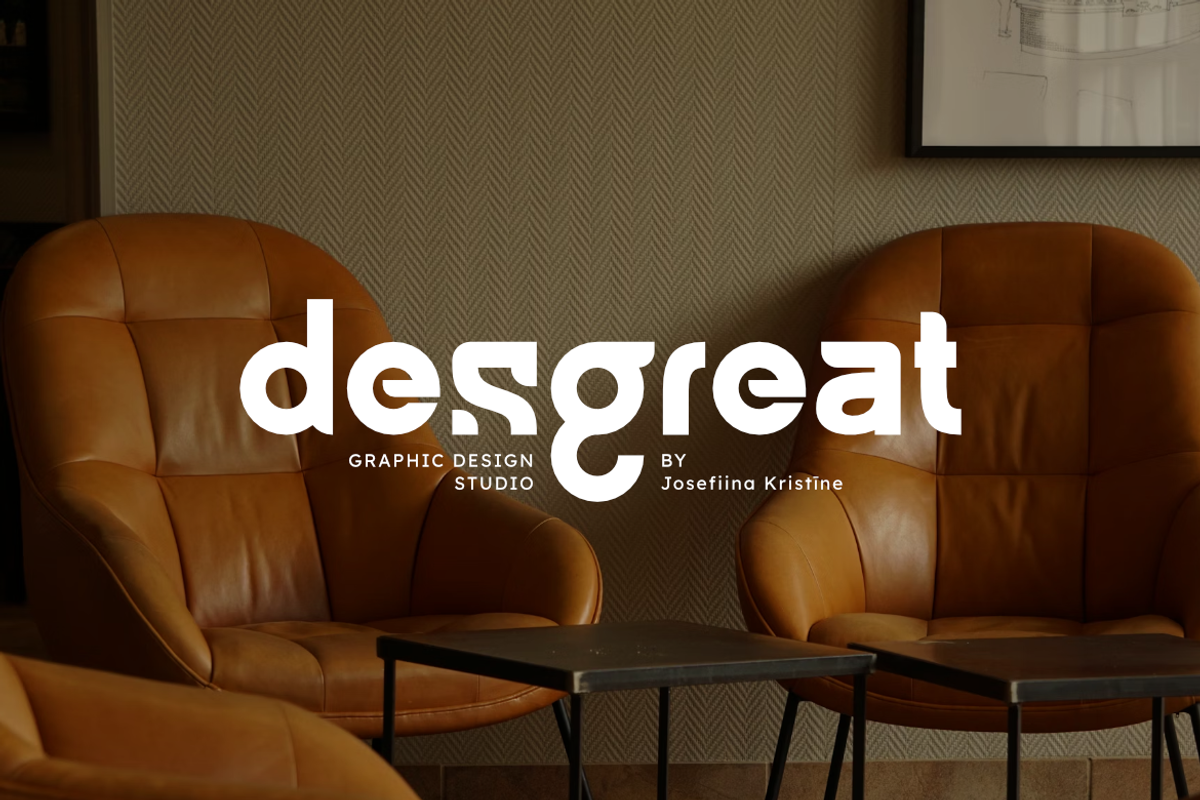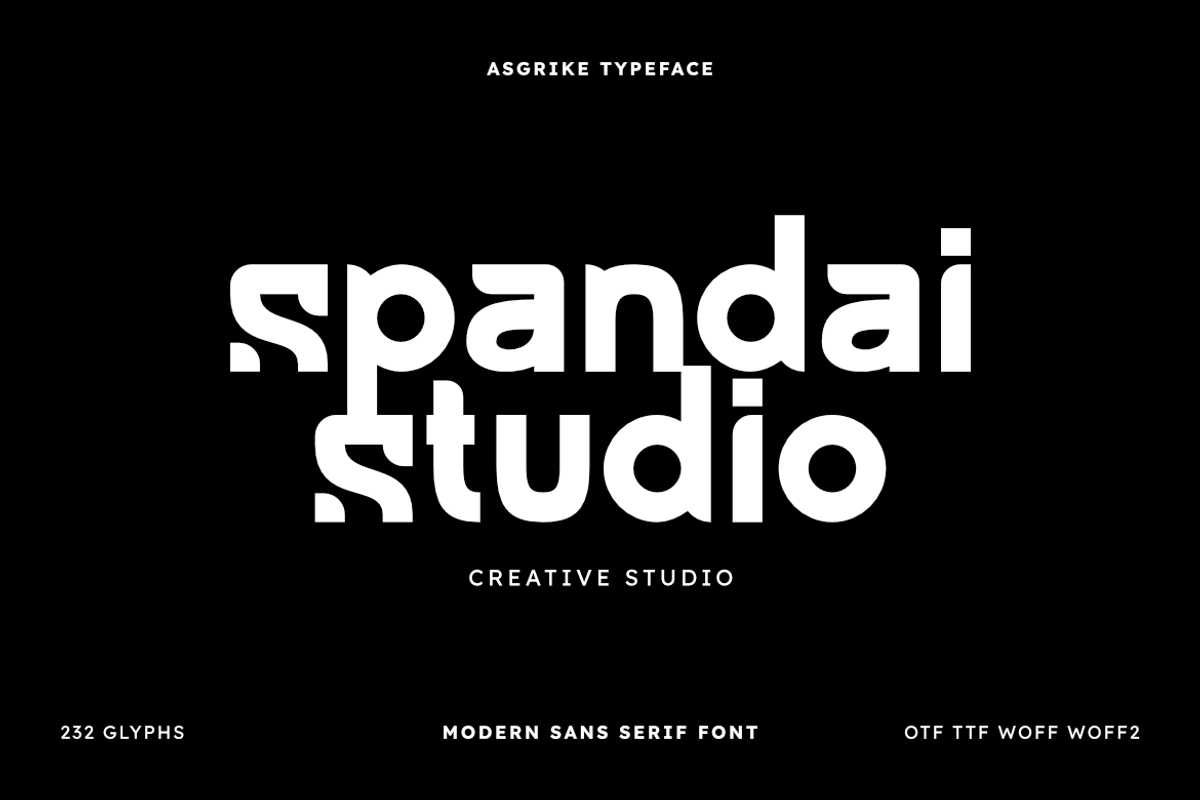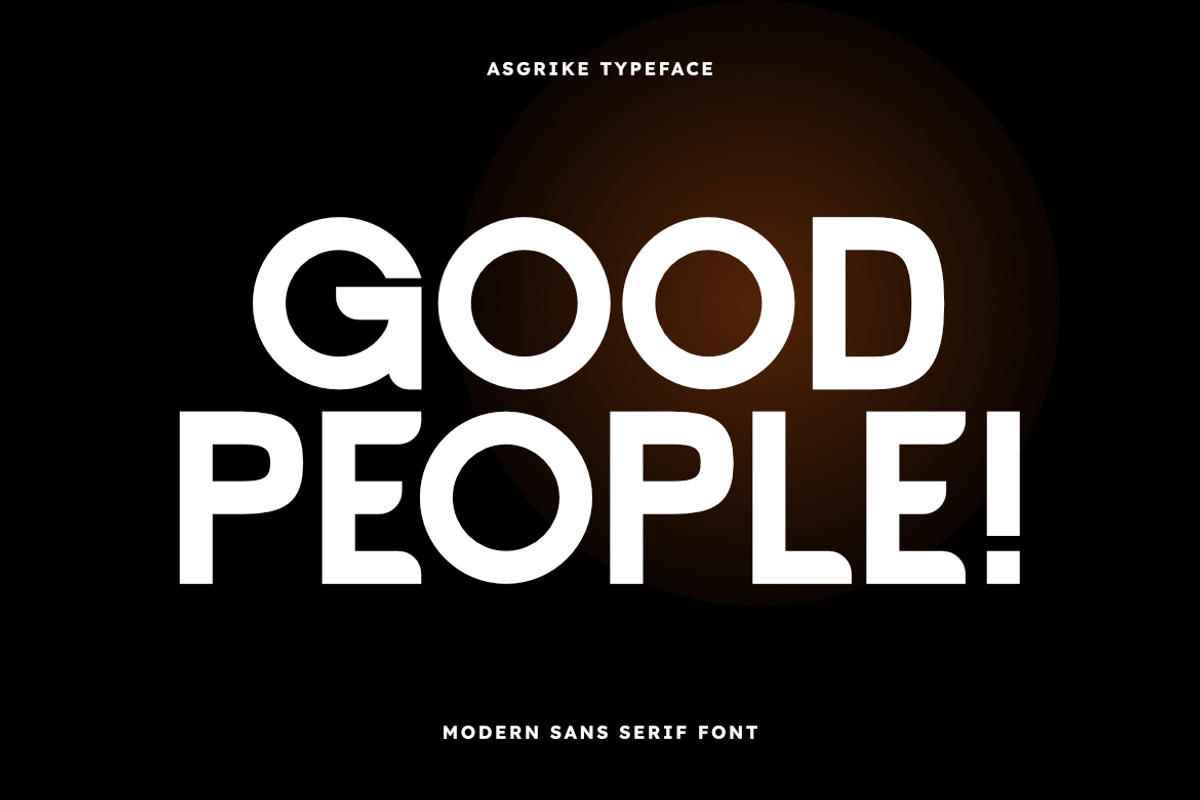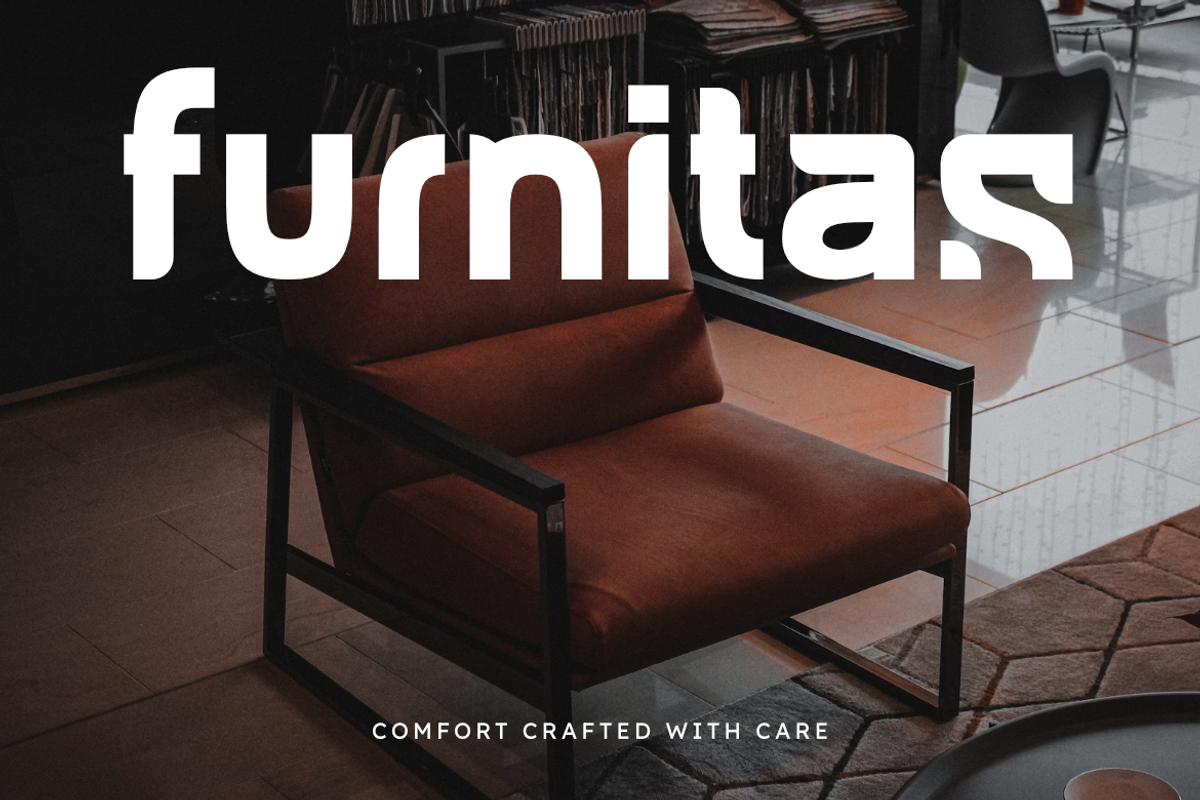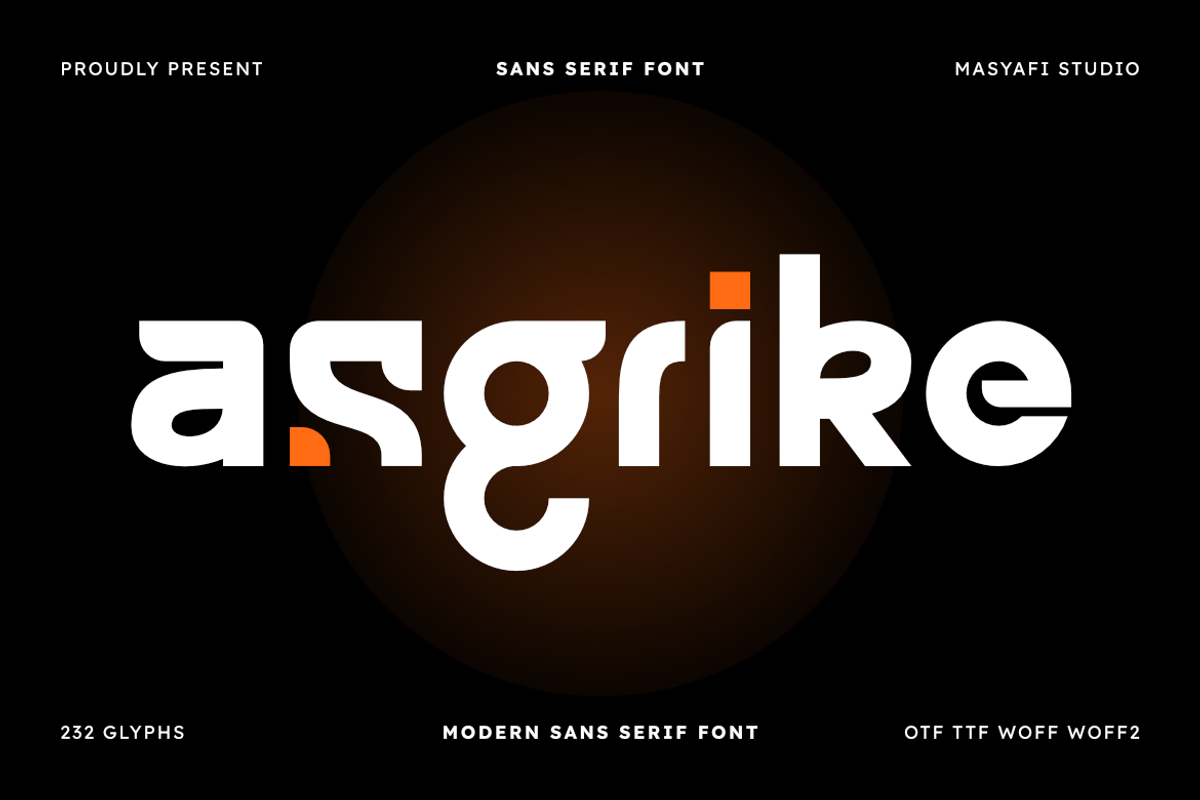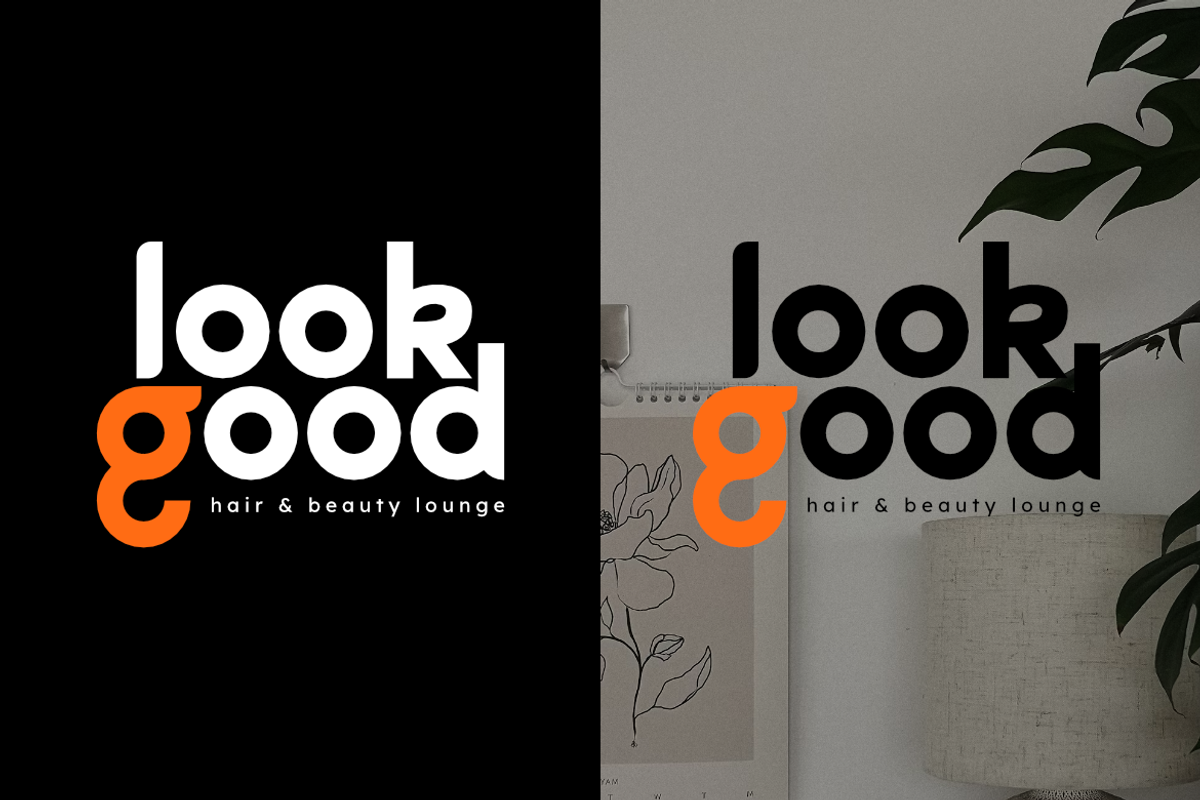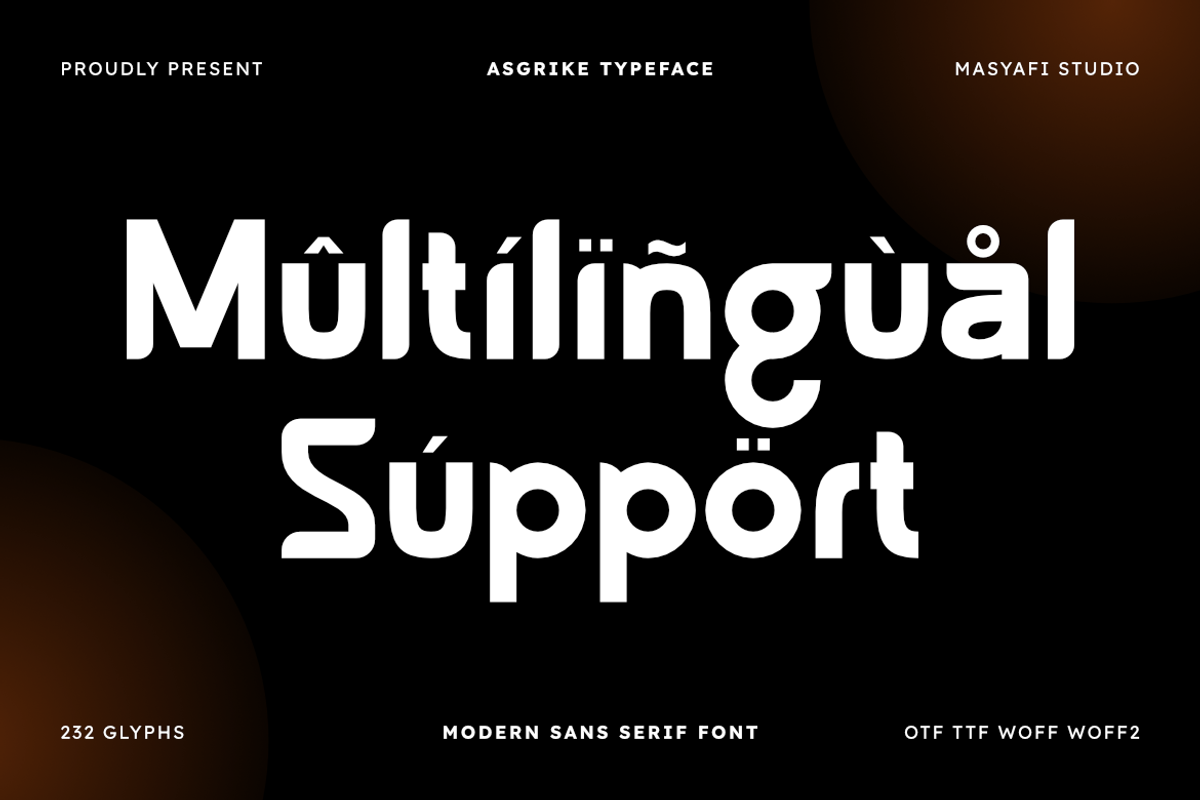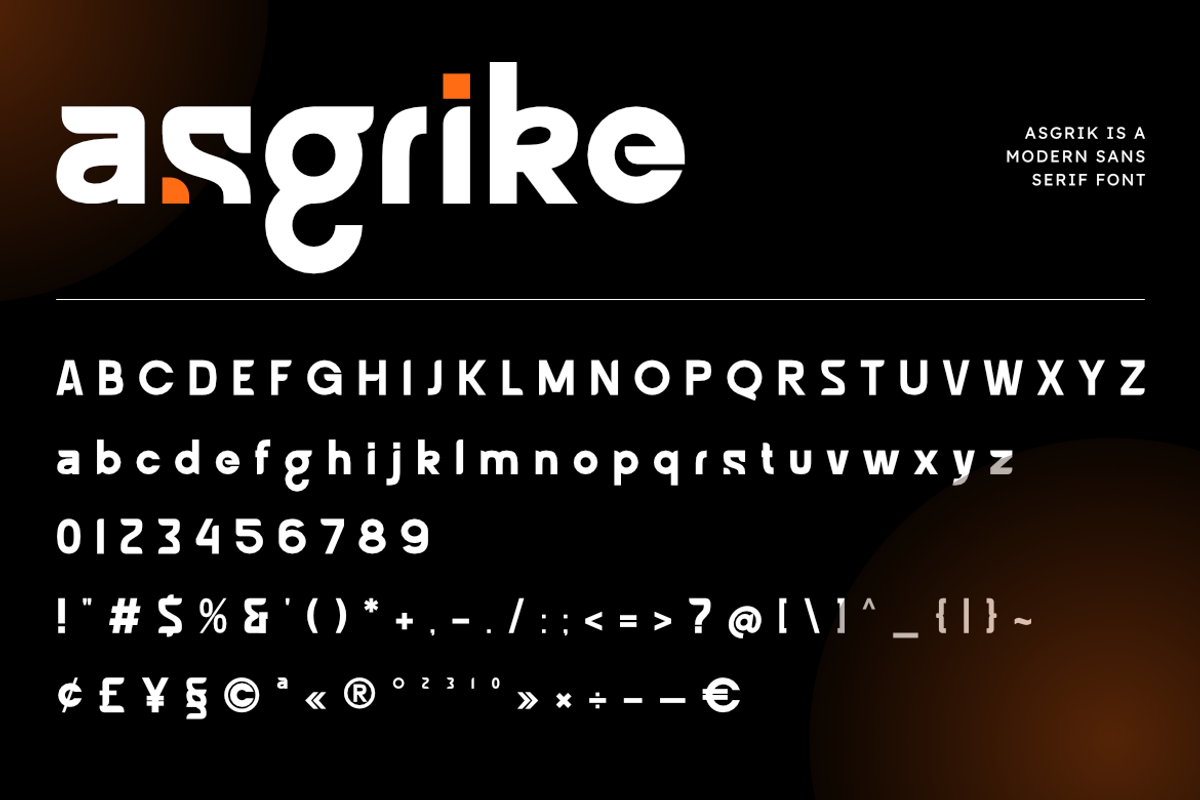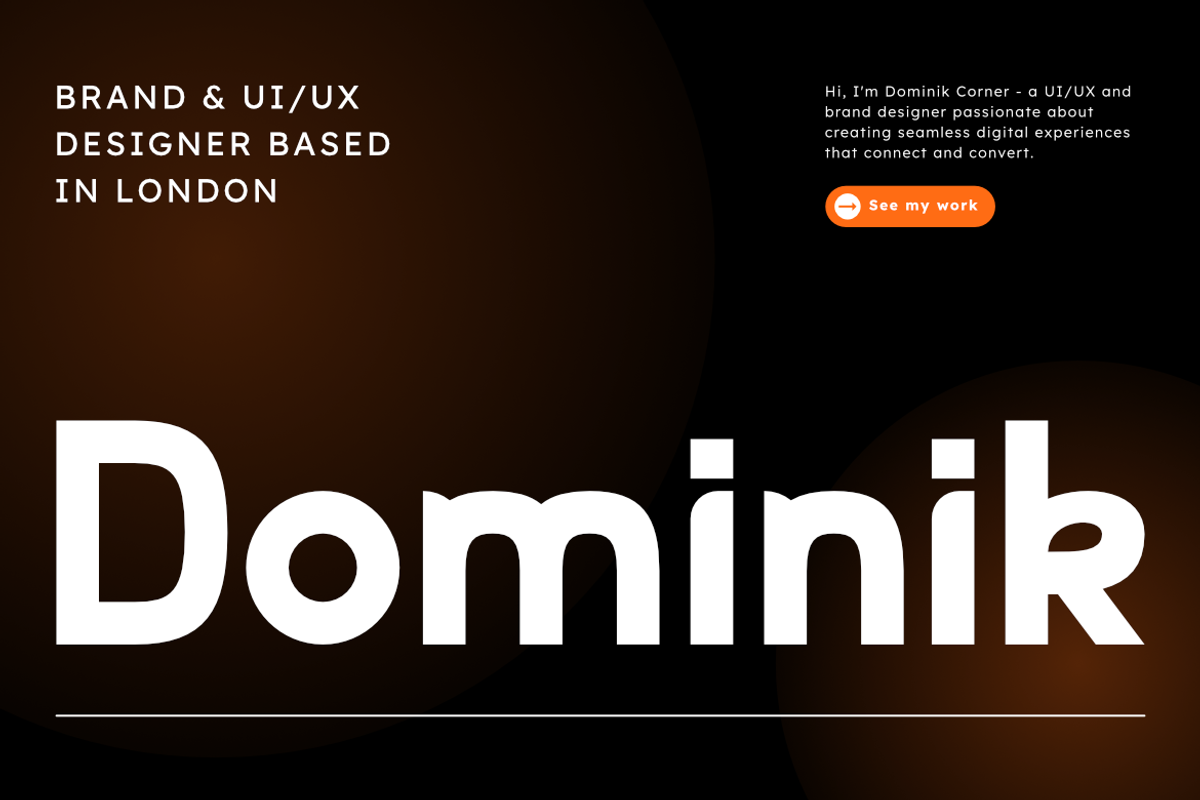
Asgrike - Modern Sans Serif Font
Asgrike is a modern sans serif font with bold geometric shapes and unique letterforms. Designed with clean lines and strong proportions, this font is perfect for logos, branding, posters, headlines, and digital design. With its contemporary style and versatile look, Asgrike works well for both display and text purposes, making it a great choice for creative projects. What’s included: OTF, TTF, WOFF, WOFF2 formats 232 glyphs Perfect for: Logo and brand identity Tech and startup design Posters and headlines Social media graphics * Modern packaging design